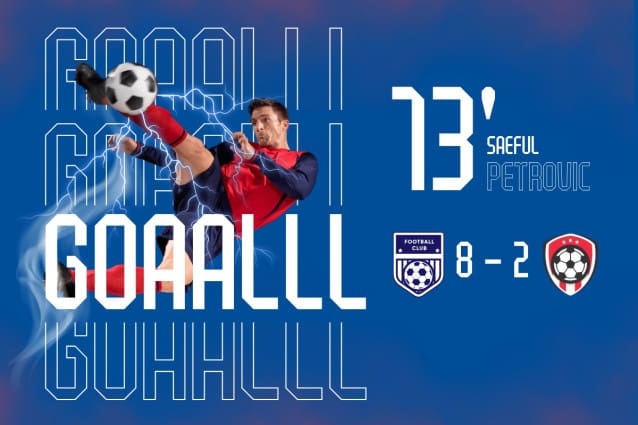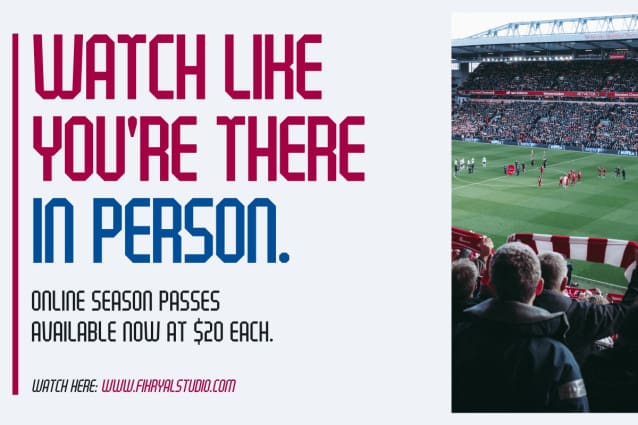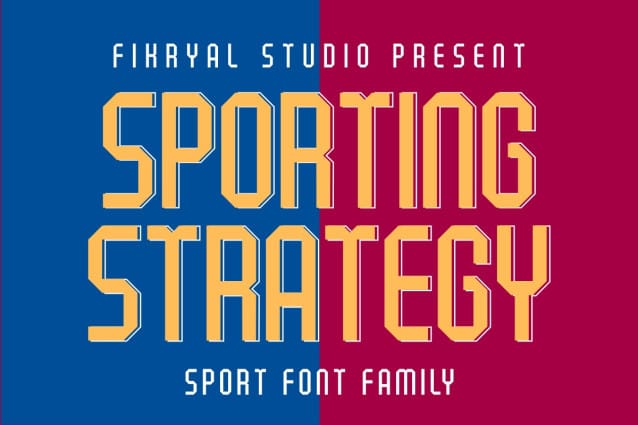
Sporting Strategy Font Family
Sporting Strategy Font Family is a dynamic and powerful all-caps font family designed to bring energy and precision to your sports and athletic-themed projects.
With a versatile collection of 8 unique styles—Light, Light Italic, Regular, Italic, Bold, Bold Italic, Hollow, and Hollow Italic—this font family offers a perfect balance of strength and flexibility. Whether you need a bold, impactful look for a team logo, a sleek design for sports apparel, or engaging branding for an active lifestyle brand, Sporting Strategy delivers the ideal solution.